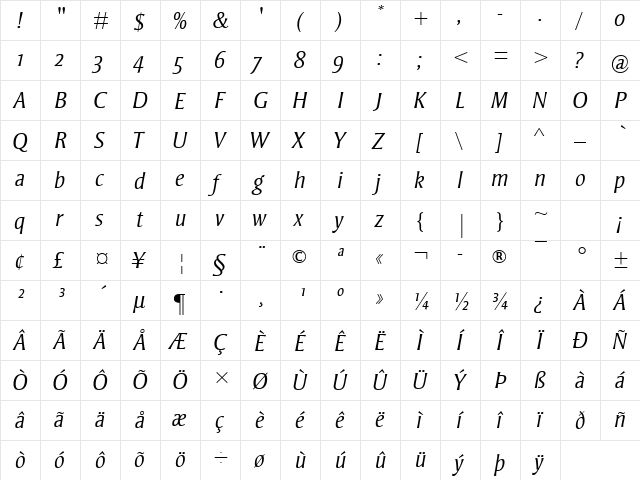
Strayhorn MT SC Light Italic Font Preview
Design Context for Strayhorn MT SC Light Typeface
Strayhorn MT SC Light takes a measured approach to typography — its balanced proportions and neutral character make it a reliable workhorse for both digital and print work. The slanted form adds forward momentum and visual energy. Its slender proportions lend an understated elegance to any composition.
Pro Tip: Use Strayhorn MT SC Light for emphasis, pull quotes, and subheadings where its slanted energy can add rhythm to the layout.